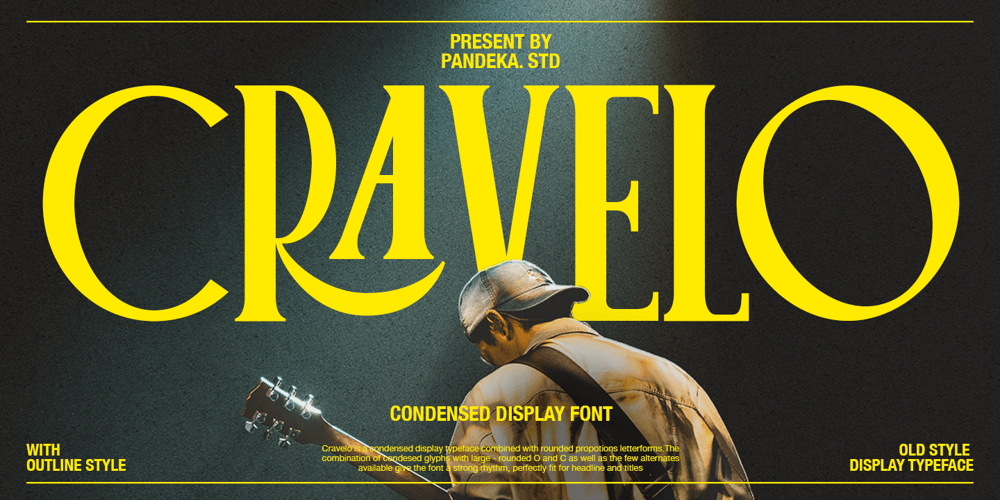
Cravelo Font Family was designed by Sagara Nararya and published by Pandeka Studio. Cravelo contains 2 styles and family package options. Cravelo is a vintage retro condensed display typeface combined with rounded proportions lettersforms. The combination of condensed glyphs with large-rounded O and C as well as the few alternates available give the font a strong rhythm, perfectly fit for headline and titles.If you’re into classic/vintage letter designs, then this typeface suits best for you. Packed with 300+ glyphs (alternate and multilingual characters included), now it’s your time to go crazy and explore the uniqueness of this typeface!Included: Cravelo main files Regular and Outline version Letters, numbers, symbols, and punctuation Use in many programs even in Canva Multilingual Support Language Support: Danish, English, Estonian, Filipino, Finnish, French, Friulian, Galician, German, Gusii, Indonesian, Irish, Italian, Luxembourgish, Norwegian Bokmål, Norwegian Nynorsk, Nyankole, Oromo, Portuguese, Romansh, Rombo, Spanish, Swedish, Swiss-German, Uzbek (Latin)ThanksPandeka Studio